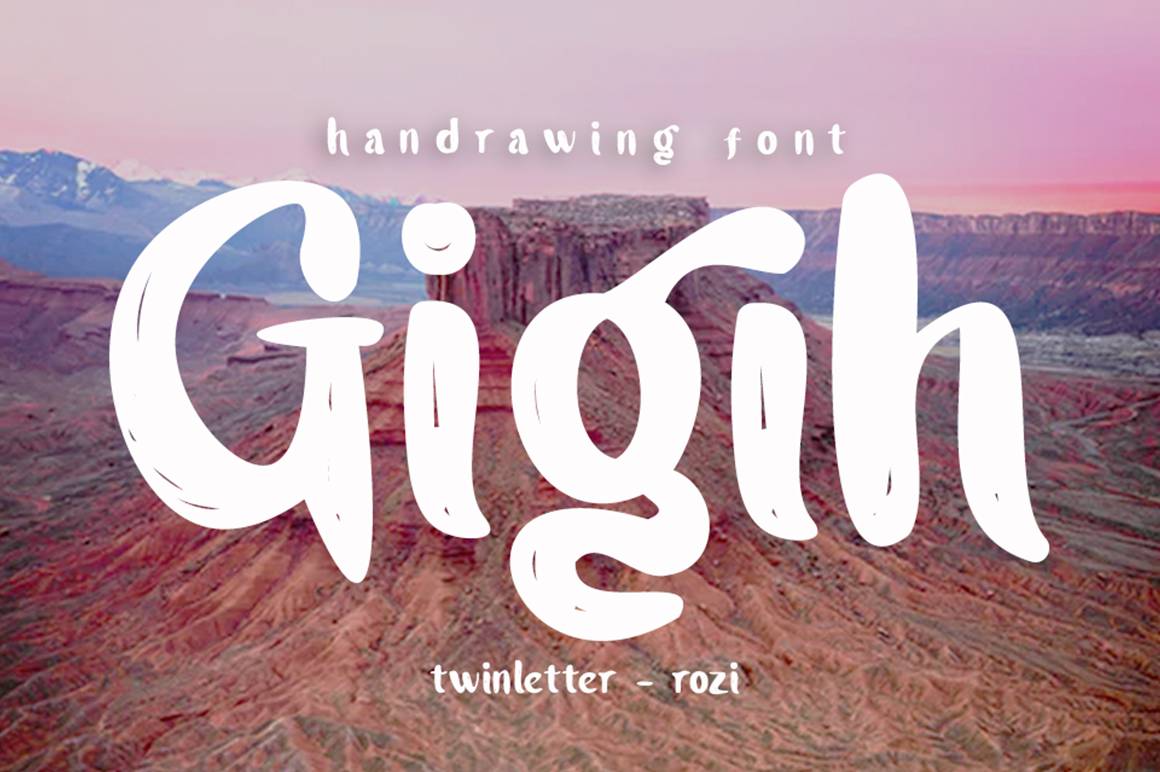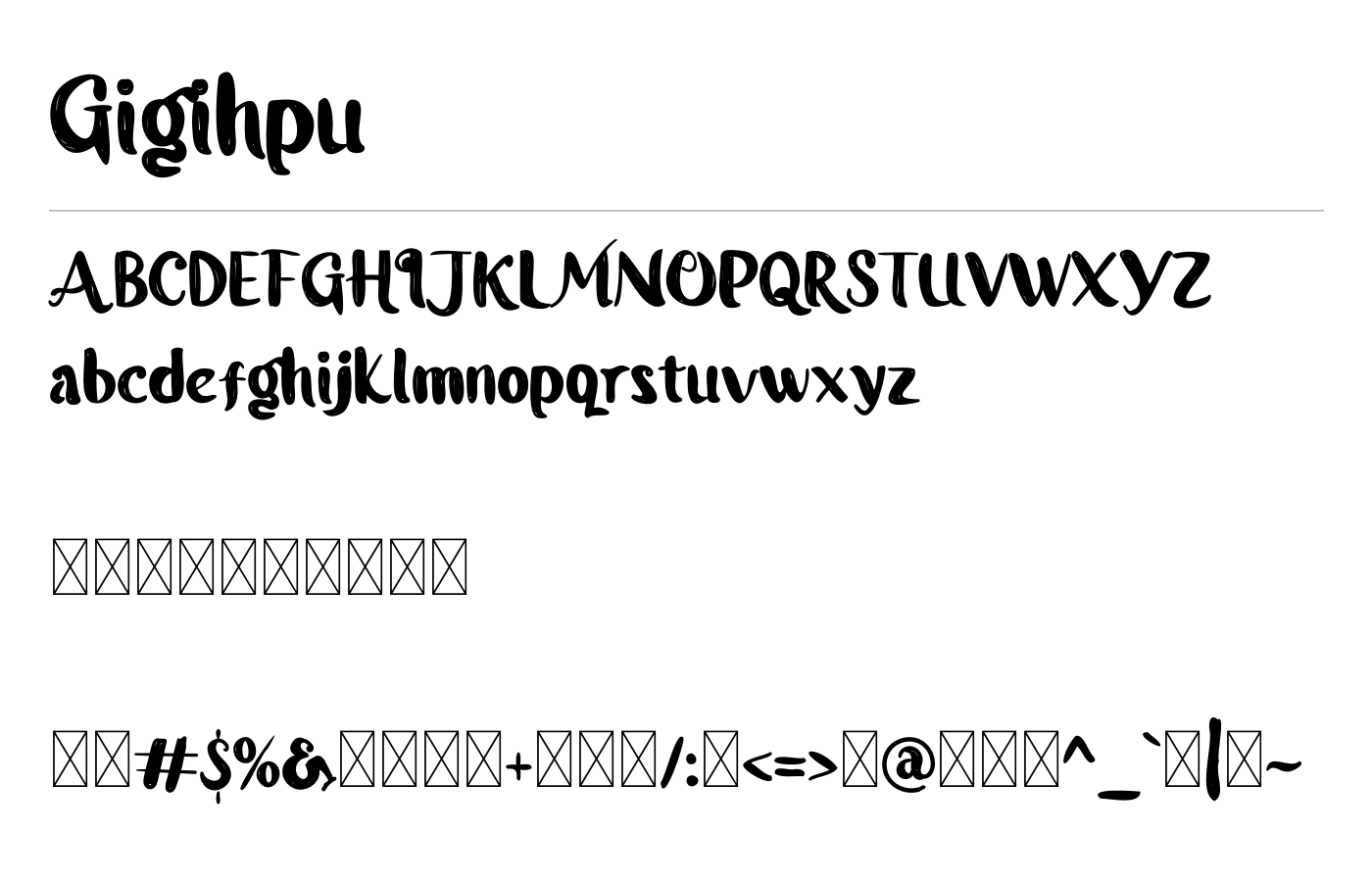
Gigih Font is a lively and bold script-style typeface with a hand-drawn feel that combines playful curves and thick strokes for a friendly, approachable look. Its uneven letterforms and energetic flow make it perfect for creative projects, casual branding, and fun headlines that need a unique personal touch. This font works well in designs seeking an informal and artistic vibe, capturing attention with its dynamic and expressive style.
Gigih Font
About Gigih Font